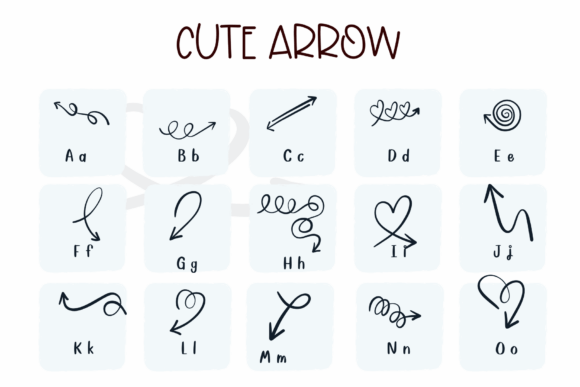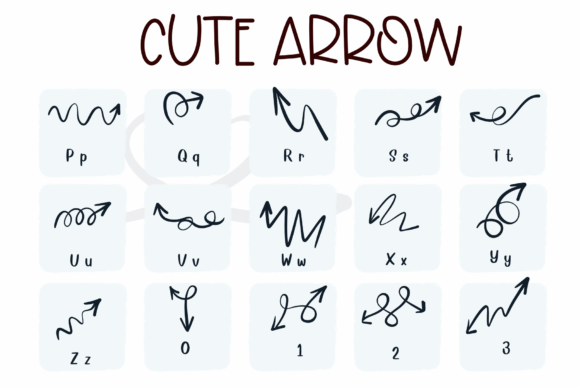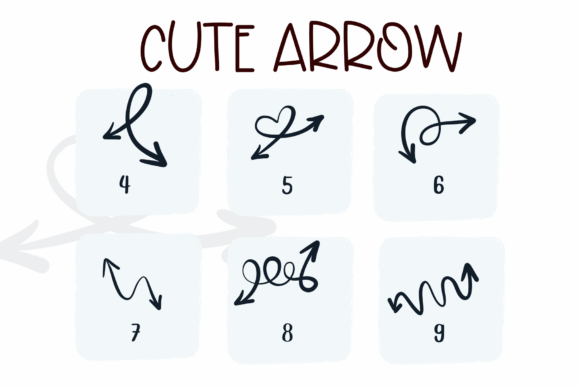
Introduction to Cute Arrow Font
Cute Arrow is a dingbats font with a sketched style.
This font can enhance your creative projects such as wedding invitations, DIY, crafts, decorations, logos, and many other creative ideas .